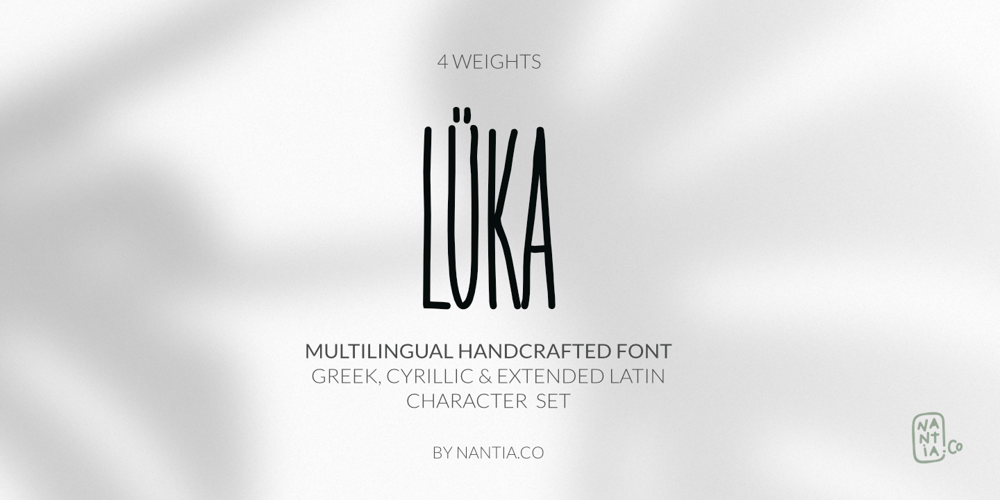
Luka Font Family was designed by Konstantina Louka and published by Nantia.co. Luka contains 4 styles and family package options. LÜKA HandWritten Multilingual Font, is an elegant display font. Needless to say that the font supports a full set of Greek characters, Cyrillics, and an extended Latin character set with diacritics. In fact, it’s a unique font that has a great variety of applications with multilingual support. A thin, elegant yet crafty looking typeface. Of course, the wide range of language support of the font makes it ideal for international food packaging. In addition, you can use it on organic packaging design, for crafts and wedding invitations and social media content. Also, the font has four weights: thin, normal, bold and heavy.